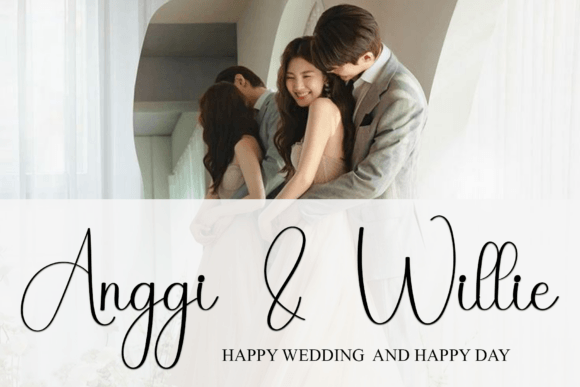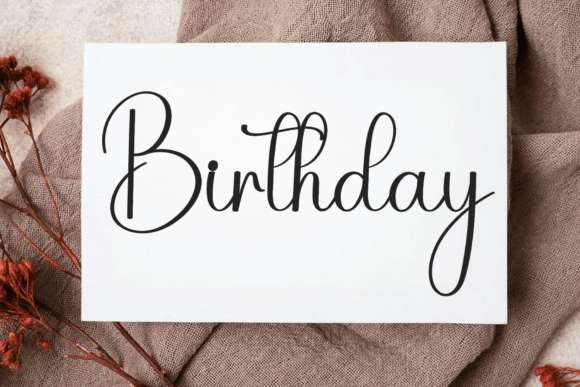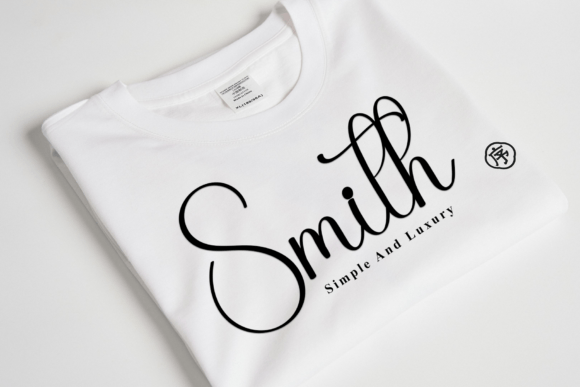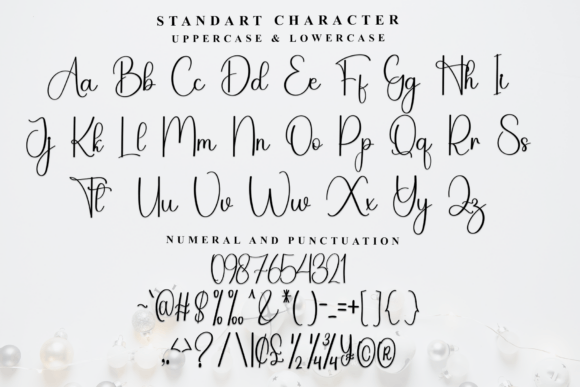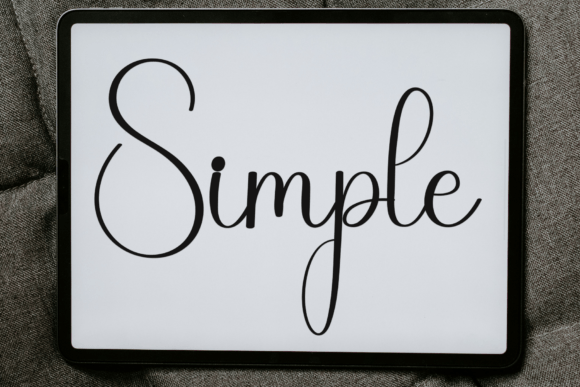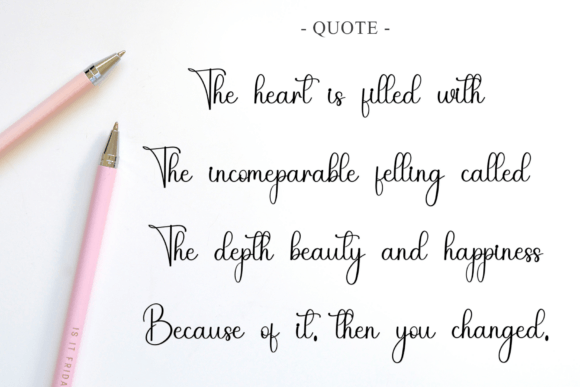
Introducing Grich Font: A Timeless Handwritten Masterpiece
Are you on the hunt for a font that can elevate your designs and make them truly unforgettable? Look no further than Grich Font, a lovely and timeless handwritten font that’s perfect for creating eye-catching logos, branding, and quotes. With its unique and beautiful touch, Grich Font is sure to make your design come alive!
What Makes Grich Font So Special?
Grich Font is a carefully crafted handwritten font that’s designed to add a touch of elegance and sophistication to any design. Every letter has a unique and beautiful touch, which sets it apart from other fonts. The font’s distinctive style is perfect for creating logos, branding, and quotes that stand out from the crowd.
Key Features of Grich Font
- PUA Encoded: Grich Font is PUA encoded, which means you can access all of the amazing glyphs and ligatures with ease. This makes it easy to use the font in your designs and get the most out of its features.
- Unique and Beautiful Touch: Every letter in Grich Font has a unique and beautiful touch, which will make your design come alive.
- Timeless Style: Grich Font has a timeless style that’s perfect for creating designs that won’t go out of fashion anytime soon.
- Perfect for Logos, Branding, and Quotes: Grich Font is perfect for creating eye-catching logos, branding, and quotes that will grab attention and leave a lasting impression.
Why Designers and Crafters Love Grich Font
Grich Font is a favorite among designers and crafters for many reasons. Here are just a few:
- Ease of Use: Grich Font is easy to use, even for those who are new to font design. The PUA encoding makes it easy to access all of the font’s features.
- Versatility: Grich Font is versatile and can be used in a wide range of designs, from logos and branding to quotes and more.
- Unique Style: Grich Font has a unique style that’s sure to make your designs stand out from the crowd.
- High-Quality Design: Grich Font is a high-quality font that’s designed to deliver exceptional results.
Tips and Tricks for Getting the Most Out of Grich Font
Here are some tips and tricks for getting the most out of Grich Font:
- Experiment with Different Sizes: Experiment with different sizes to find the perfect fit for your design.
- Play with Colors: Play with different colors to find the perfect match for your design.
- Use Ligatures and Glyphs: Use the ligatures and glyphs to add an extra touch of elegance to your design.
- Combine with Other Fonts: Combine Grich Font with other fonts to create a unique and eye-catching design.
Grich Font is a timeless handwritten font that’s perfect for creating eye-catching logos, branding, and quotes. With its unique and beautiful touch, Grich Font is sure to make your design come alive. Whether you’re a designer or crafter, Grich Font is a must-have font that’s sure to deliver exceptional results.